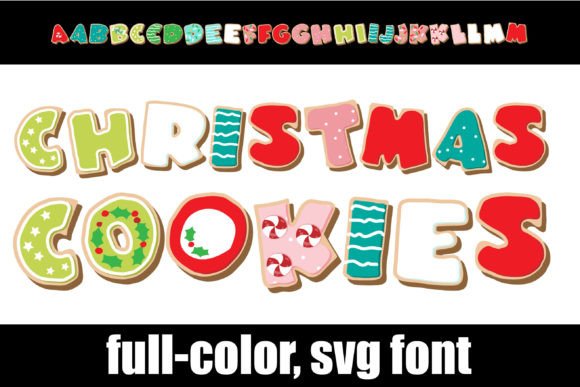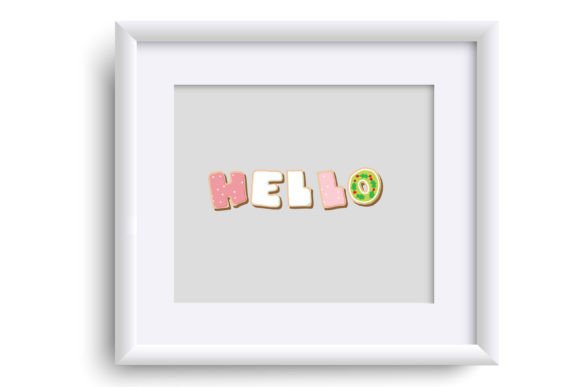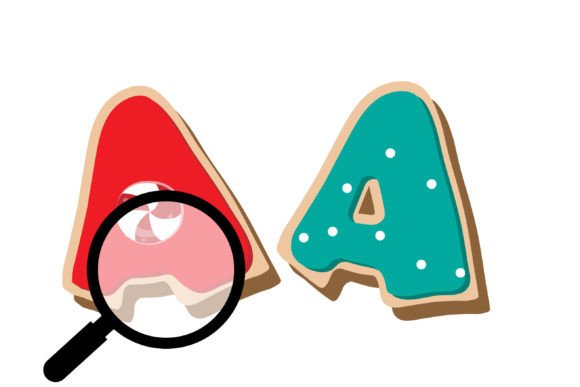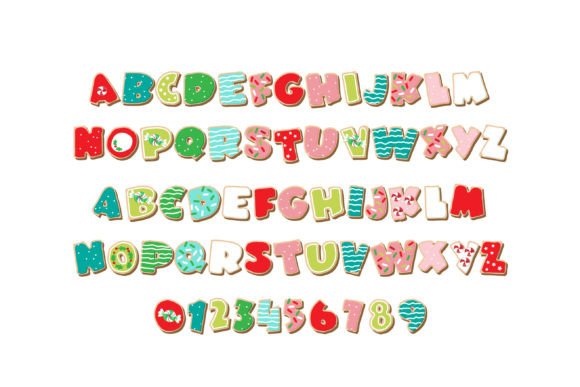
Christmas Cookies Font
About the Christmas Cookies Font
Welcome to the world of Christmas Cookies Font, a typeface that will inspire your next great project. This full-color font features a cookie style font in a Christmas color palette.